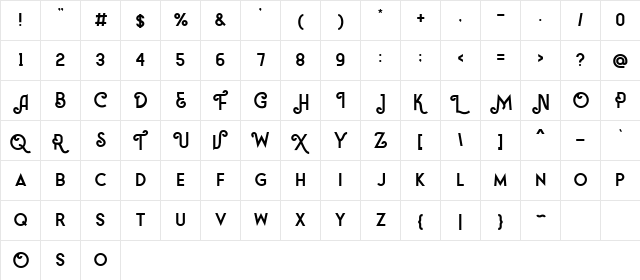
Almeda Regular
| Designer | Muhammad Husni Haikal |
Design Context for Almeda Typeface
Almeda takes a measured approach to typography — its balanced proportions and neutral character make it a reliable workhorse for both digital and print work.